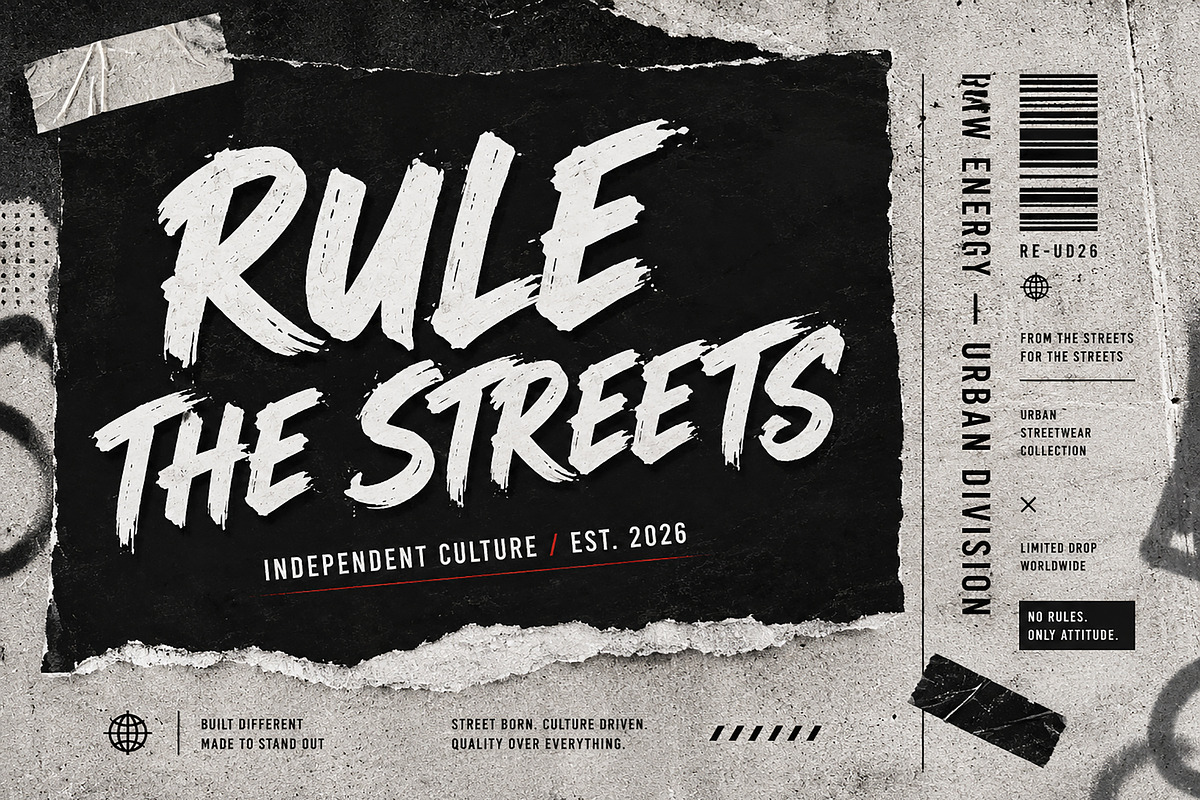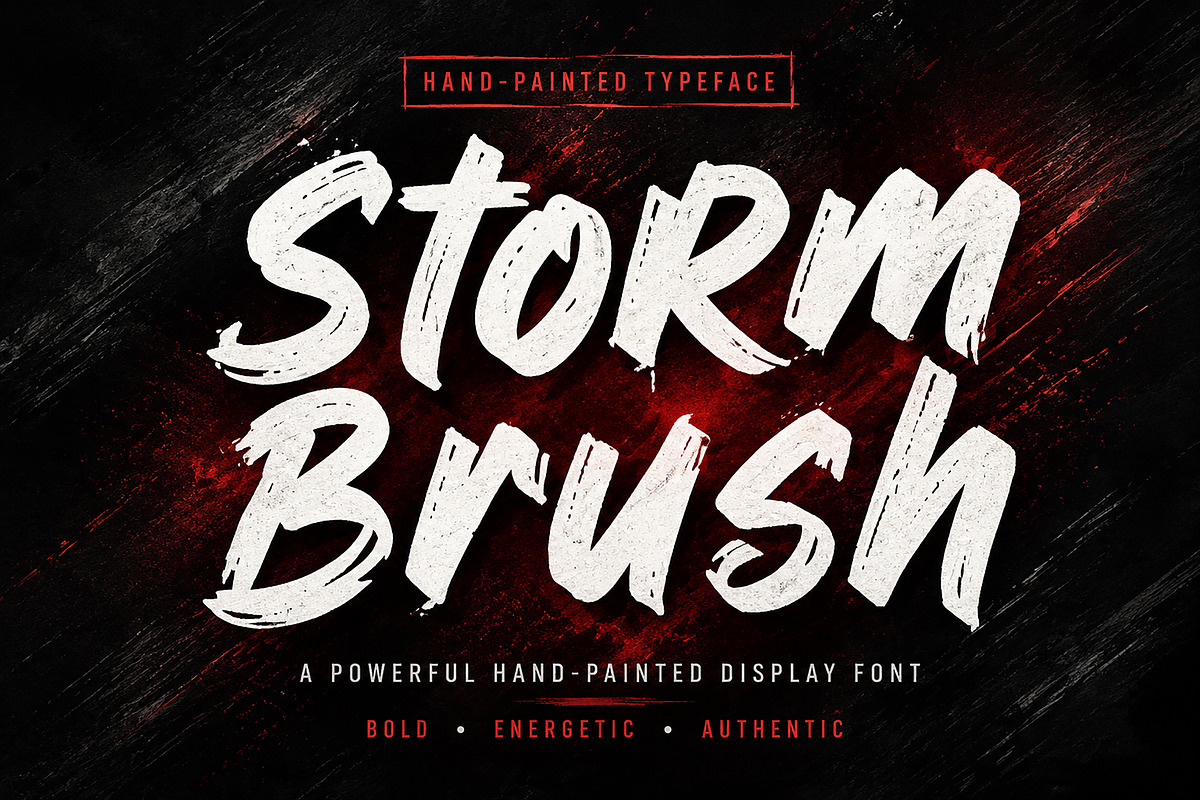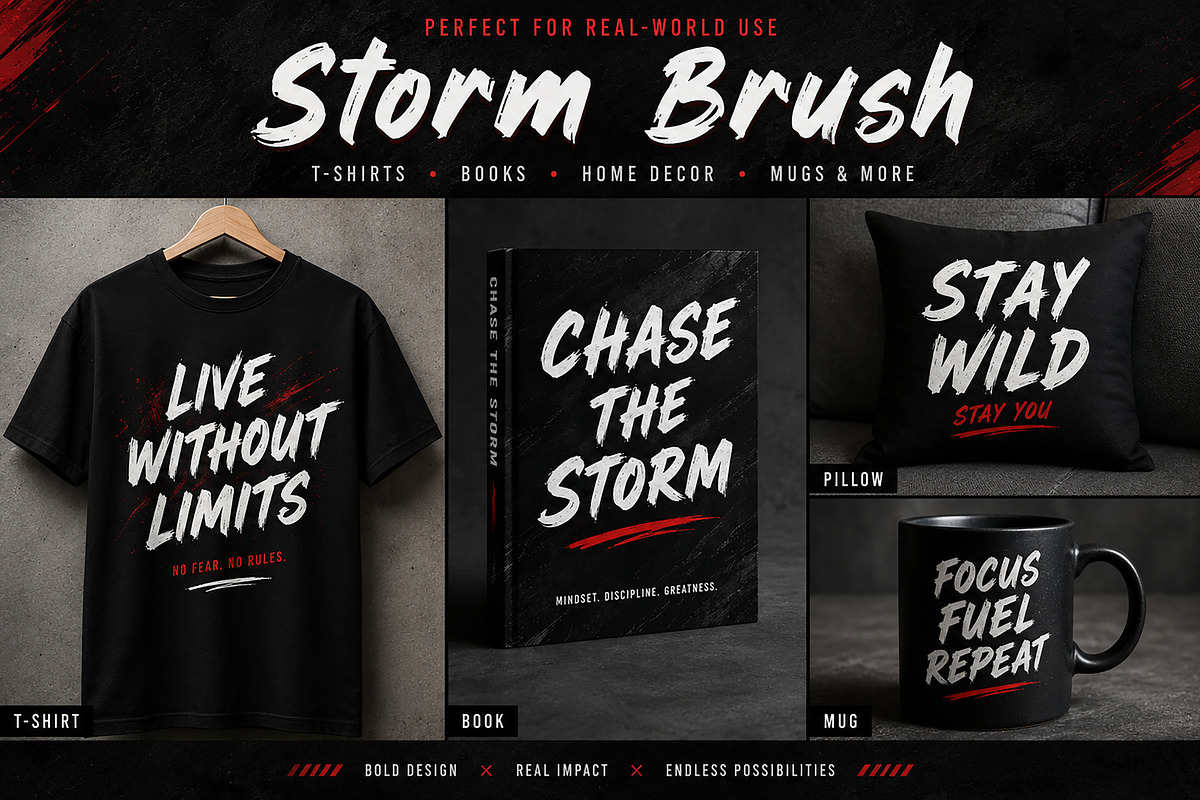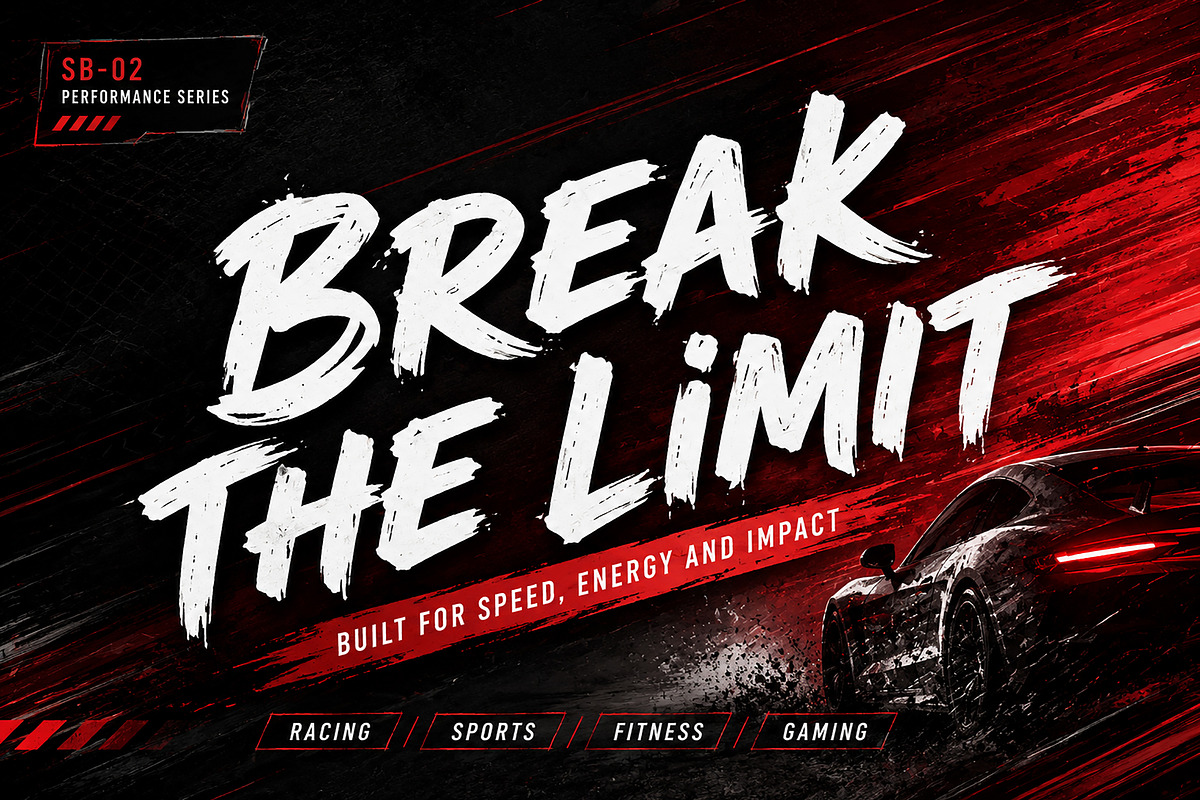
Storm Brush
Storm Brush is a bold, hand-painted brush display font created to make an instant impact. Featuring authentic brush strokes, rough edges, and energetic letterforms, this typeface is perfect for designers who want powerful typography with a raw, handcrafted feel.
Whether you're creating sports branding, streetwear apparel, music posters, gaming graphics, social media content, or eye-catching logos, Storm Brush delivers a confident and expressive look that stands out.
Every character has been carefully crafted to preserve the natural brush texture while maintaining excellent readability for headlines and display use.
Logos & Branding
Streetwear Designs
Sports Graphics
Gym & Fitness Branding
Racing Projects
Gaming Titles
Music Posters
Album Covers
YouTube Thumbnails
Event Posters
Advertising Campaigns
Apparel & T-Shirt Design
Authentic Hand-Painted Brush Style
Uppercase & Lowercase Letters
Stylistic Brush Appearance
Create bold headlines, memorable branding, and energetic designs with a typeface that brings motion, personality, and handcrafted character to every project.